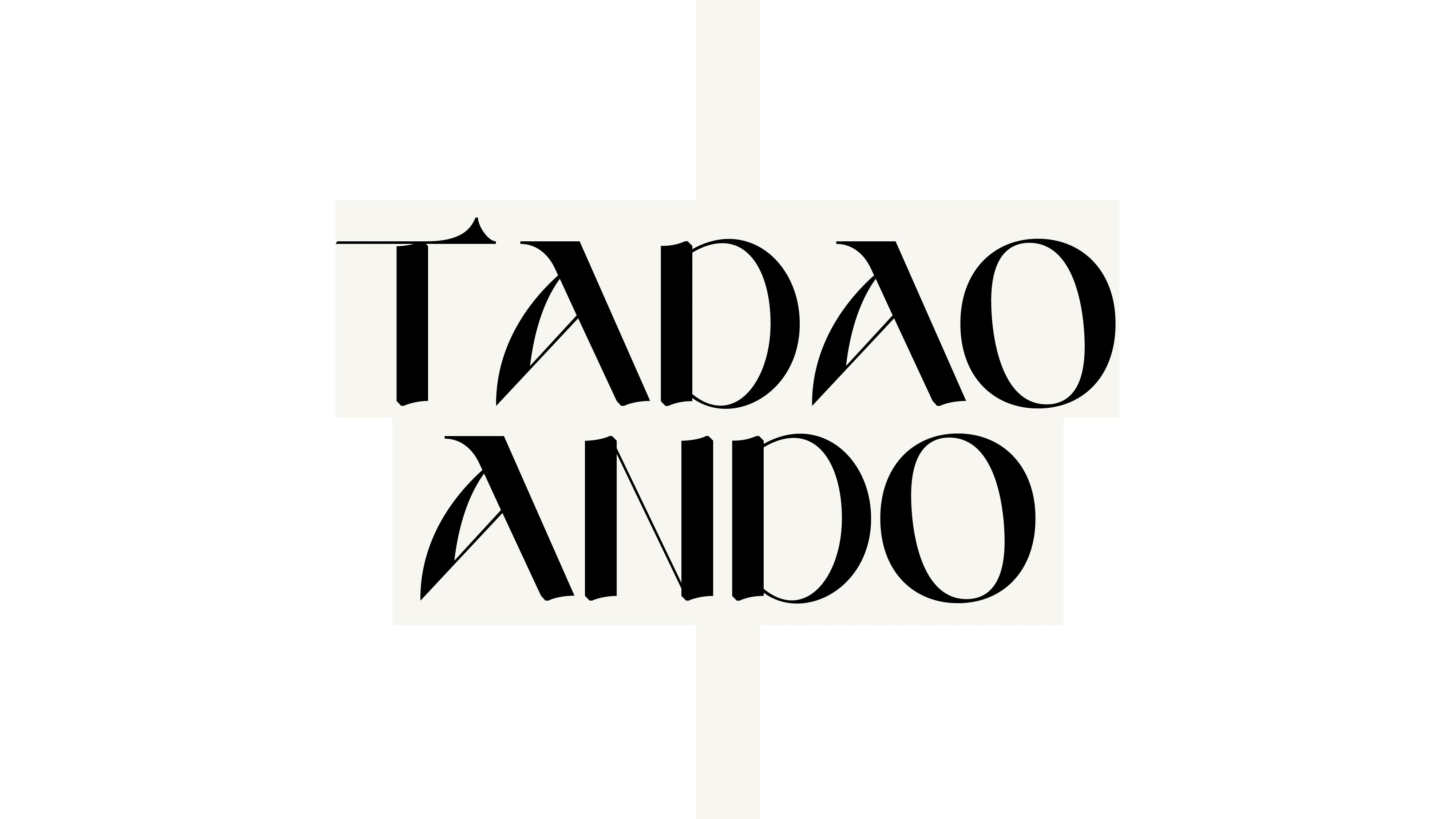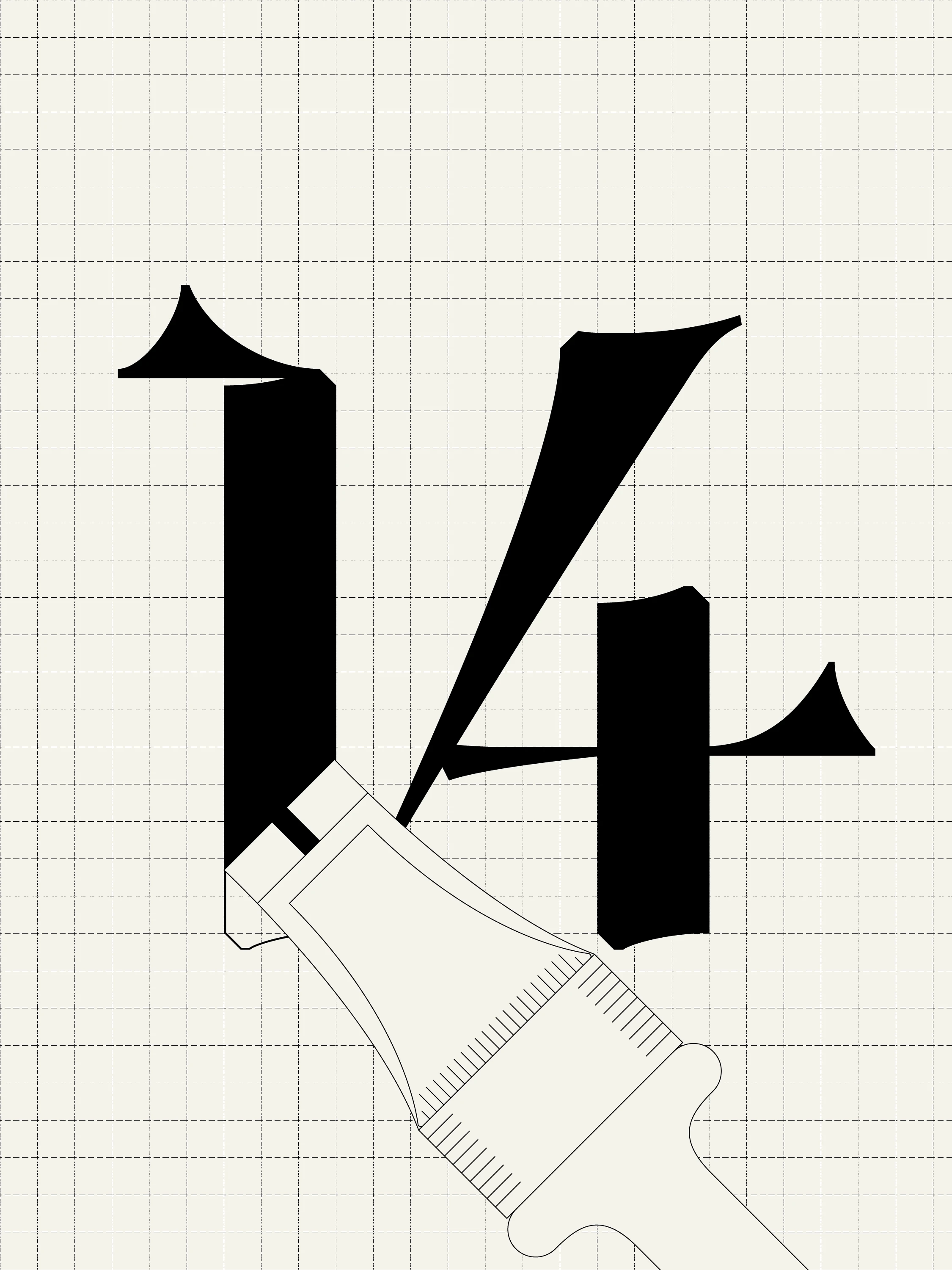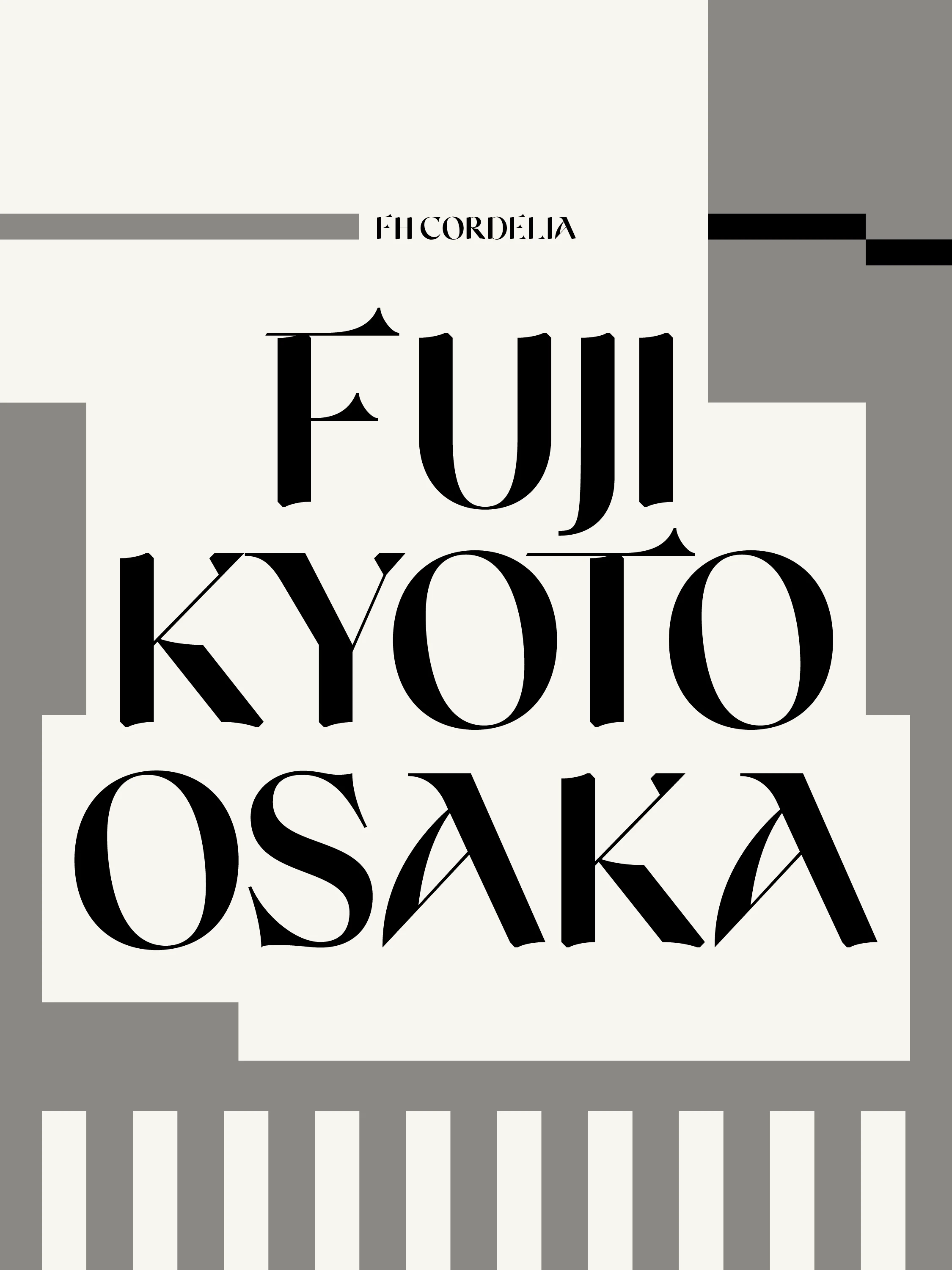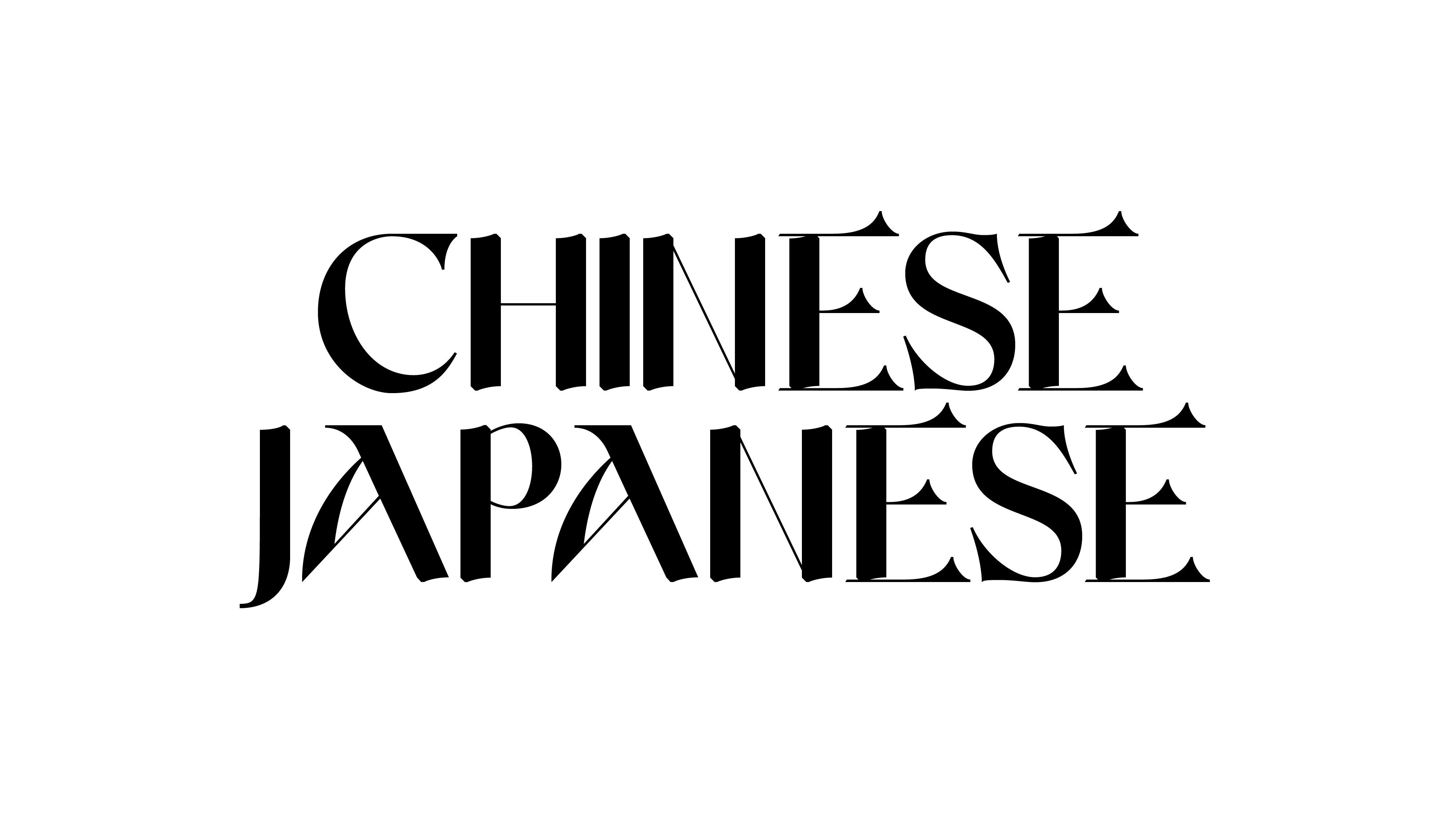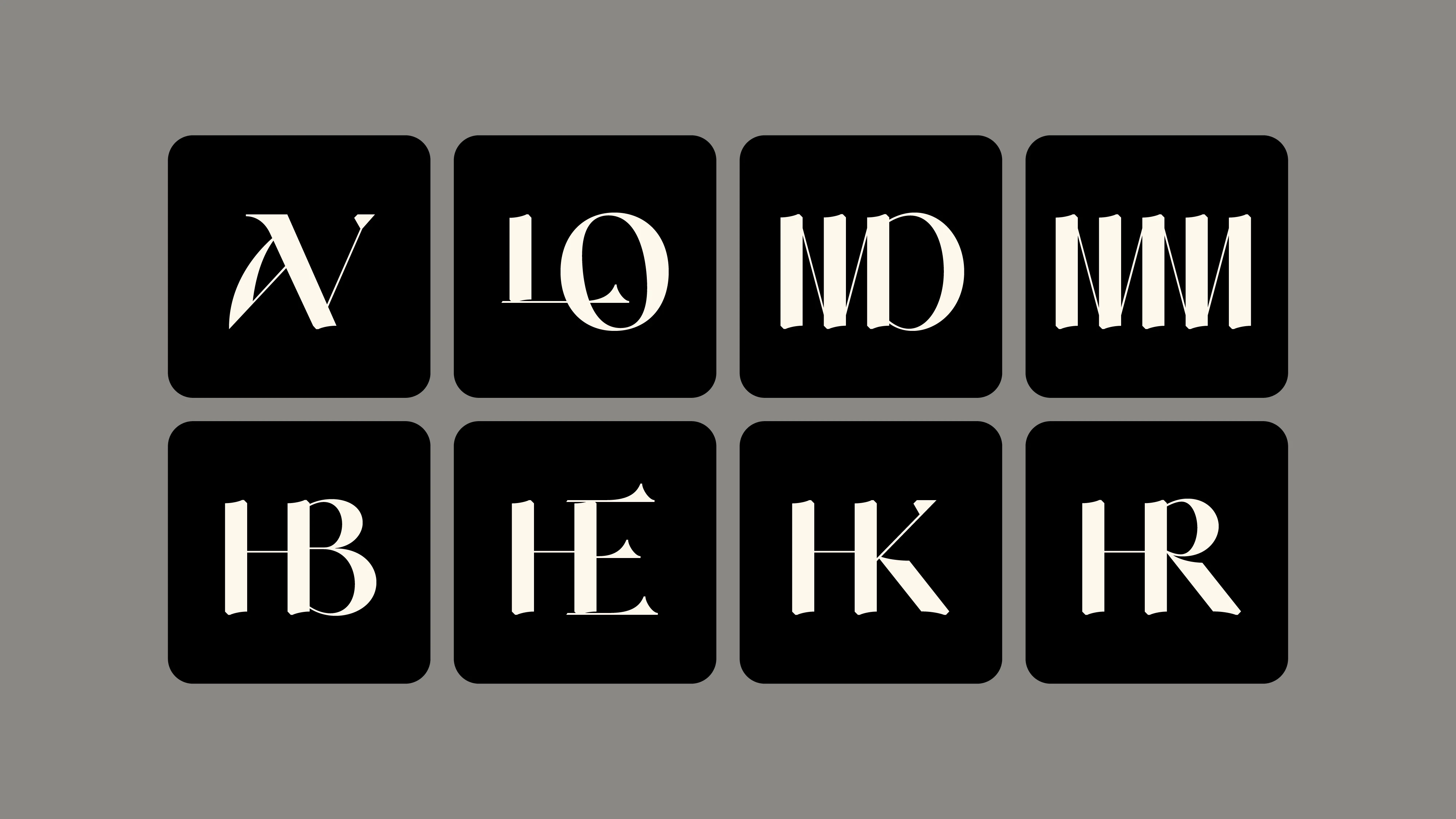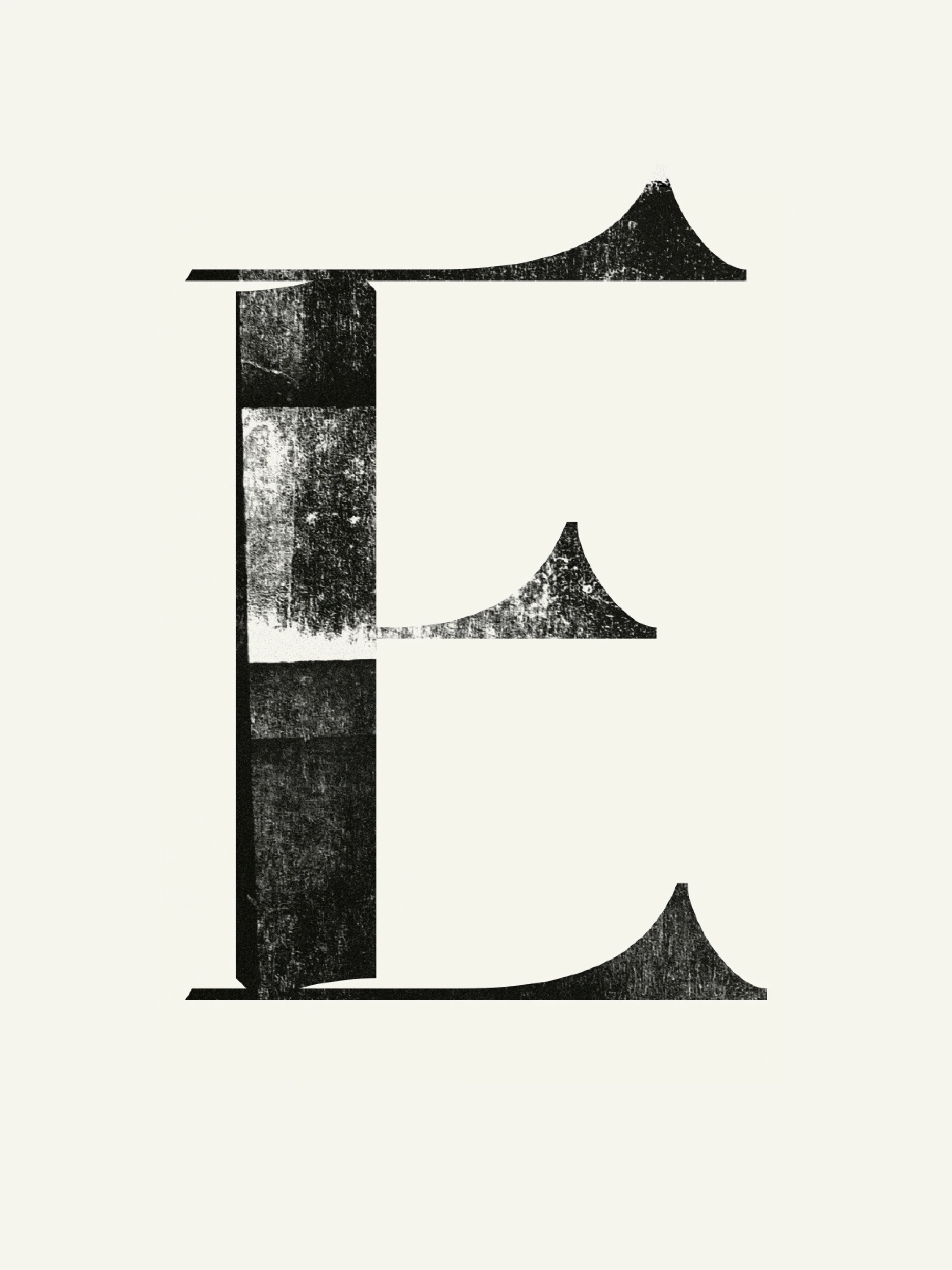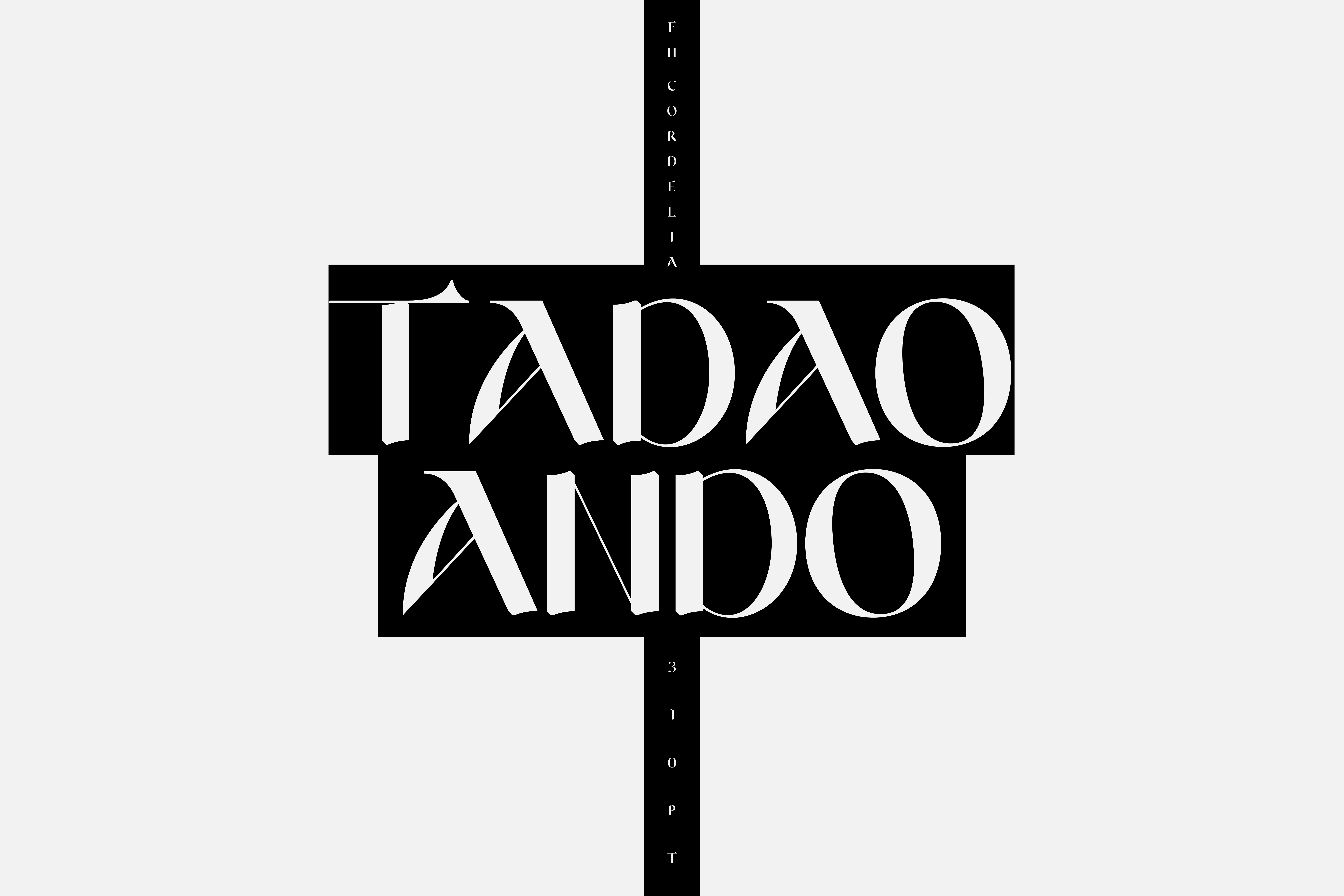
FH Cordelia channels East Asian calligraphy through a contemporary serif lens. With contrast-heavy strokes and brush-informed terminals, it merges gesture and structure. Its hybrid letterforms and ornamental curves suggest both restraint and flourish, making it ideal for covers, identities, and cultural design with typographic depth.